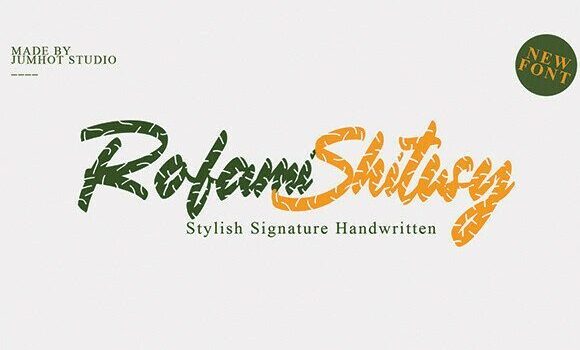
Rofamy Shitusi Font – Free Download Introduction to Rofamy Shitusi Font Rofamy Shitusi is a wildly expressive and decorative signature handwritten font that truly stands out with its unusual, two-toned infill, giving it a unique, organic, and tropical texture. 📸